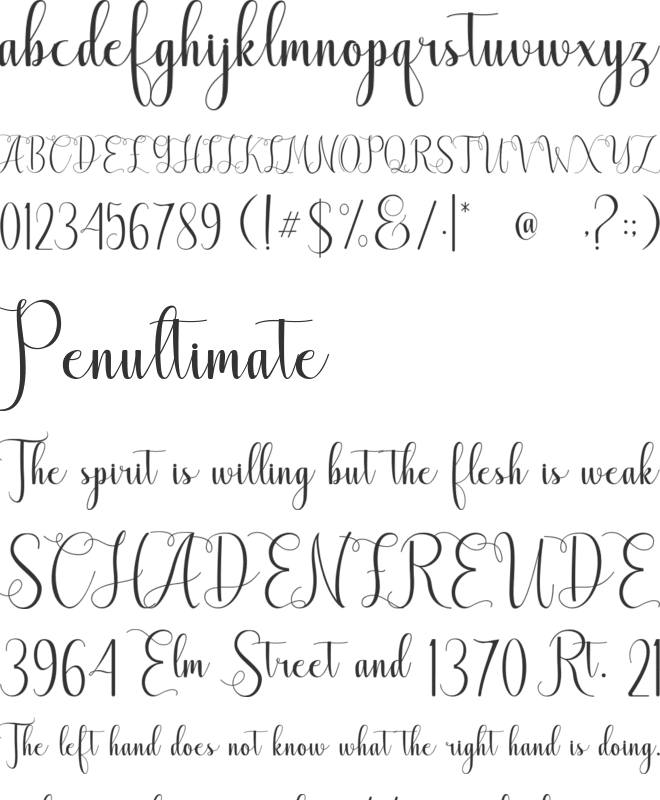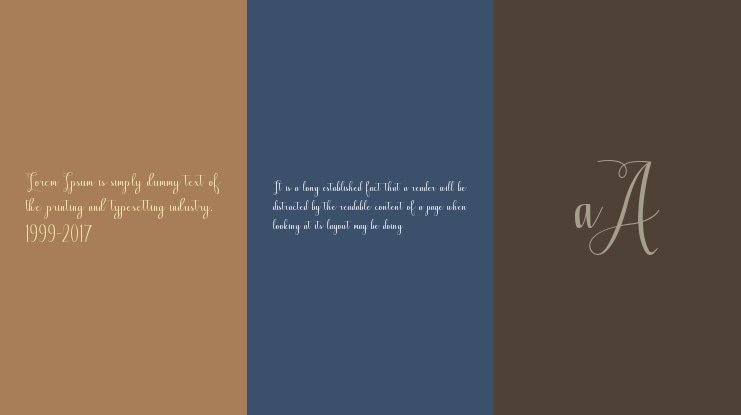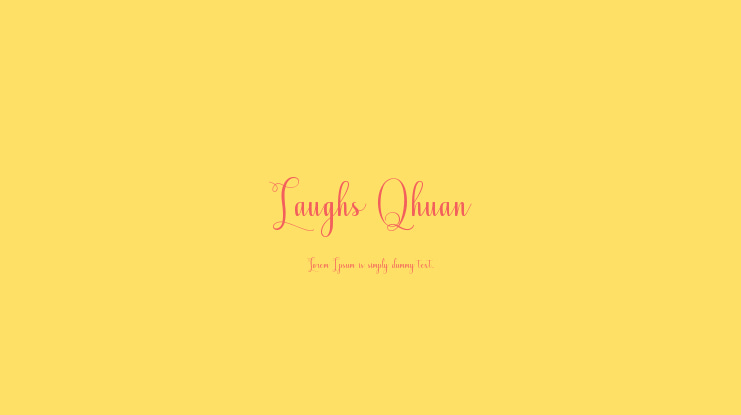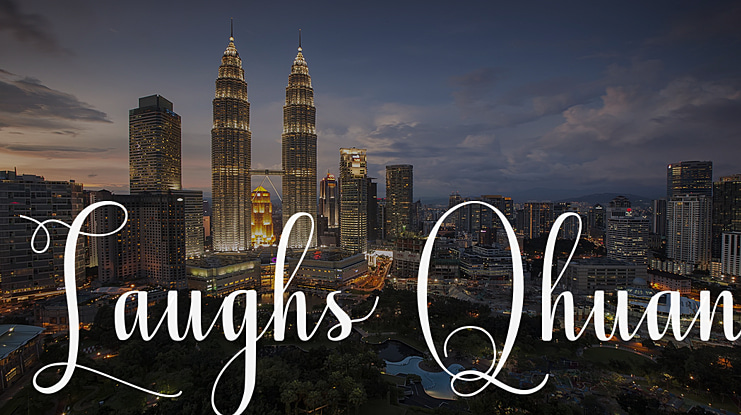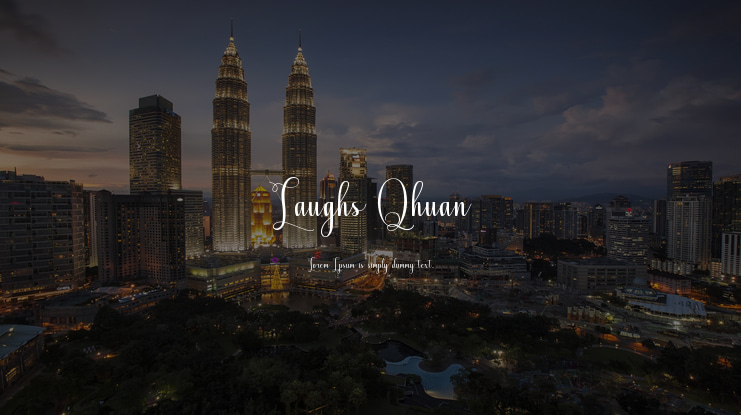
Laughs Qhuan Font
Laughs Qhuan is a delicate and elegant handwritten font. Its distinct and well rounded letters make this font a masterpiece. This font is PUA encoded which means you can access all of the glyphs and swashes with ease! Fall in love with its incredibly versatile style and use it to create spectacular designs!By installing or using this font, you are agree to the Product Usage Agreement :- This font ONLY for PERSONAL USE. NO COMMERCIAL USE ALLOWED!- Link to purchase commercial license : https://onedsgn.com/product/laughs-qhuan/- Any donation are very appreciated. Paypal Link for donation : paypal.me/namaracreativestudio